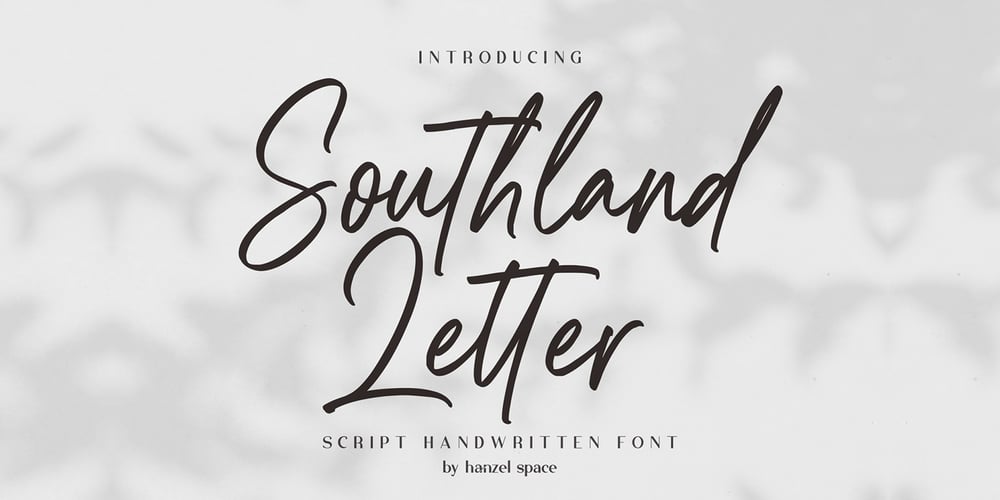
Southland Letter Font Family was designed by Hanief Farandi and published by Hanzel Space. Southland Letter contains 1 styles and family package options. Southland Script Handwritten Font with contemporary, sophisticated accents. It is perfect for branding, wedding invites, tagline, cards, maybe for label and logo.Southland includes full set of gorgeous uppercase and lowercase letters, numerals, a large range of punctuation and ligatures. It expresses beauty of handwriting. What you get, darling?In order to use the beautiful ligatures, you need a program that supports OpenType features such as Adobe Illustrator CS, Adobe Photoshop CC, Adobe Indesign and Corel Draw.Feel free to give me a message if you have a problem or question.